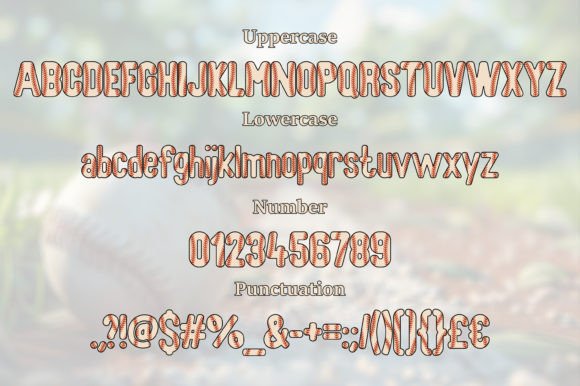
Step Up Your Design Game with Baseball Legends Font
Remember the thrill of watching a baseball game on a sunny summer day, the crack of the bat, and the roar of the crowd? That’s the kind of excitement you can bring to your designs with the Baseball Legends Font. This captivating typographic creation is designed to add a touch of uniqueness and creativity to your projects, making them truly unforgettable.
Baseball Legends Font is a versatile tool for designers, offering a complete set of characters, including uppercase, lowercase, and numbers, that can be used across various types of projects. With its carefully chosen colors and excellent legibility, this font is an ideal choice for enhancing the visualization of your message. Whether you’re working on print designs, web designs, or promotional materials, the Baseball Legends Font is sure to elevate your creations.
By incorporating this font into your designs, you can express your creativity and add a personal touch that sets you apart from the rest. With the Baseball Legends Font, you can take your projects to the next level and create truly unforgettable designs that leave a lasting impression.
Baseball Legends Font Key Features
- Character Set: The font includes a wide range of characters, including uppercase and lowercase letters, numbers, punctuation marks, and special characters, making it suitable for various text-based applications.
- Unique Characteristics: The Baseball Legends Font features a classic, nostalgic design inspired by vintage baseball logos and typography, perfect for sports-themed projects, such as baseball teams, stadiums, or equipment.
- Style Variations: The font includes several style variations, including Regular, Italic, Bold, and Bold Italic, allowing designers to create visually appealing and diverse text arrangements.
Design Review: Baseball Legends Font
Overall, I think the Baseball Legends Font is a great choice for projects related to baseball or sports, but it has some limitations that prevent it from being a top-notch font. ✨
- Unique design: The font’s distressed, vintage look is perfect for creating a nostalgic feel in baseball-themed projects.
- Legibility: The font is easy to read, even at smaller sizes, making it suitable for a wide range of applications.
- Character: The font’s personality shines through in its custom-designed characters, adding to its charm and uniqueness.
- ⚠️ Limited versatility: The font’s style is too specific to baseball or sports, making it less versatile for general use.
- ⚠️ Limited character set: The font’s character set is limited, which may cause issues when trying to typeset complex text or languages that require a wider range of characters.
- ⚠️ Limited font sizes: The font’s readability starts to break down at larger sizes, which may limit its use in headings or titles.
While the Baseball Legends Font has its charms, its limitations hold it back from being a top choice for general use. However, for projects specifically related to baseball or sports, it’s a great option that can add a unique touch to your design.
Is the Baseball Legends Font compatible with non-English languages?